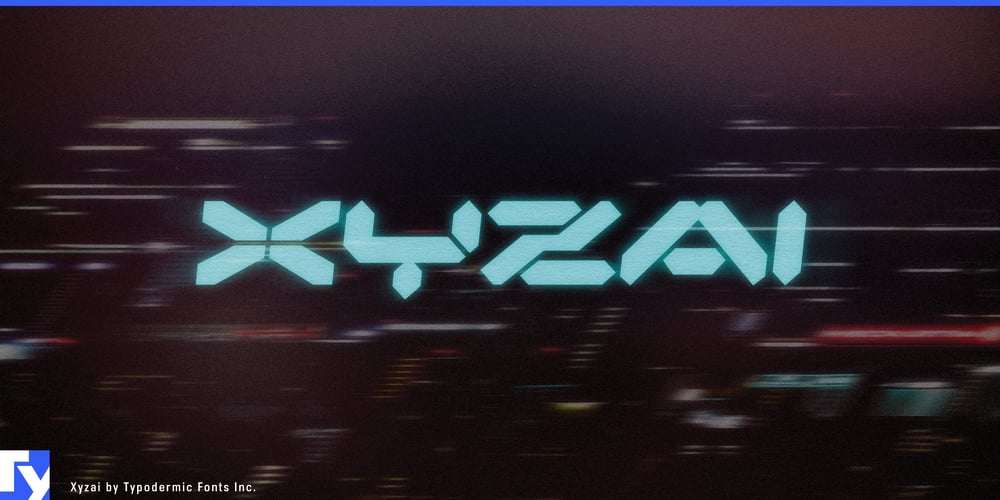
Xyzai Font Family was designed by Ray Larabie and published by Typodermic. Xyzai contains 2 styles and family package options. The turn of the millennium marked a significant shift in the world of design. From the pulsating lights of Times Square to the glowing screens of our computers, technology became an essential part of our lives. Inspired by this futuristic aesthetic, the Xyzai typeface brings a unique blend of industrial elegance and scientific clarity to your message. Xyzai’s segmented LED-inspired structure and unusually wide letterforms are sure to catch the eye of any viewer. Its unconventional design allows for a voice that is both striking and sophisticated. Whether you’re creating a digital display, poster, or magazine layout, Xyzai adds a touch of boldness and sophistication to any project. This Y2K-inspired techno typeface comes in two styles—regular and italic—allowing for versatility in your design choices. Whether you’re looking to create a sleek and modern feel or want to add a touch of edginess to your design, Xyzai is the perfect choice. The ruggedness of Xyzai’s design is reflective of the technology that inspired it, giving it a raw, authentic feel. Its LED-inspired design is both innovative and timeless, making it a font that will stand the test of time. In conclusion, Xyzai is a typeface that bridges the gap between technology and art. Its industrial elegance and scientific clarity make it a must-have for any designer looking to create a bold and striking message. Choose Xyzai and embrace the future of design today. Most Latin-based European writing systems are supported, including the following languages. Afaan Oromo, Afar, Afrikaans, Albanian, Alsatian, Aromanian, Aymara, Azerbaijani, Bashkir (Latin), Basque, Belarusian (Latin), Bemba, Bikol, Bosnian, Breton, Cape Verdean, Creole, Catalan, Cebuano, Chamorro, Chavacano, Chichewa, Crimean Tatar (Latin), Croatian, Czech, Danish, Dawan, Dholuo, Dutch, English, Estonian, Faroese, Fijian, Filipino, Finnish, French, Frisian, Friulian, Gagauz (Latin), Galician, Ganda, Genoese, German, Gikuyu, Greenlandic, Guadeloupean Creole, Haitian Creole, Hawaiian, Hiligaynon, Hungarian, Icelandic, Igbo, Ilocano, Indonesian, Irish, Italian, Jamaican, Kaingang, Kanuri, Kaqchikel, Karakalpak (Latin), Kashubian, Kikongo, Kinyarwanda, Kirundi, Kurdish (Latin), Latvian, Lithuanian, Lombard, Low Saxon, Luxembourgish, Maasai, Makhuwa, Malay, Maltese, Māori, Moldovan, Montenegrin, Nahuatl, Ndebele, Neapolitan, Norwegian, Novial, Occitan, Ossetian (Latin), Papiamento, Piedmontese, Polish, Portuguese, Quechua, Rarotongan, Romanian, Romansh, Sami, Sango, Saramaccan, Sardinian, Scottish Gaelic, Serbian (Latin), Shona, Sicilian, Silesian, Slovak, Slovenian, Somali, Sorbian, Sotho, Spanish, Swahili, Swazi, Swedish, Tagalog, Tahitian, Tetum, Tongan, Tshiluba, Tsonga, Tswana, Tumbuka, Turkish, Turkmen (Latin), Tuvaluan, Uzbek (Latin), Venda, Venetian, Vepsian, Võro, Walloon, Waray-Waray, Wayuu, Welsh, Wolof, Xavante, Xhosa, Yapese, Zapotec, Zarma, Zazaki, Zulu and Zuni.